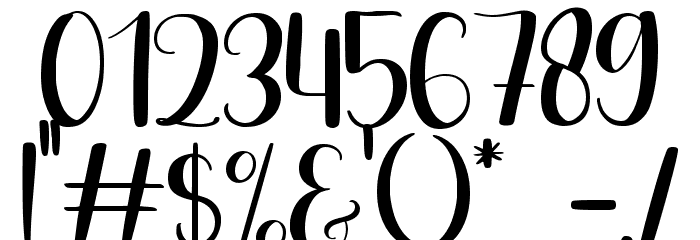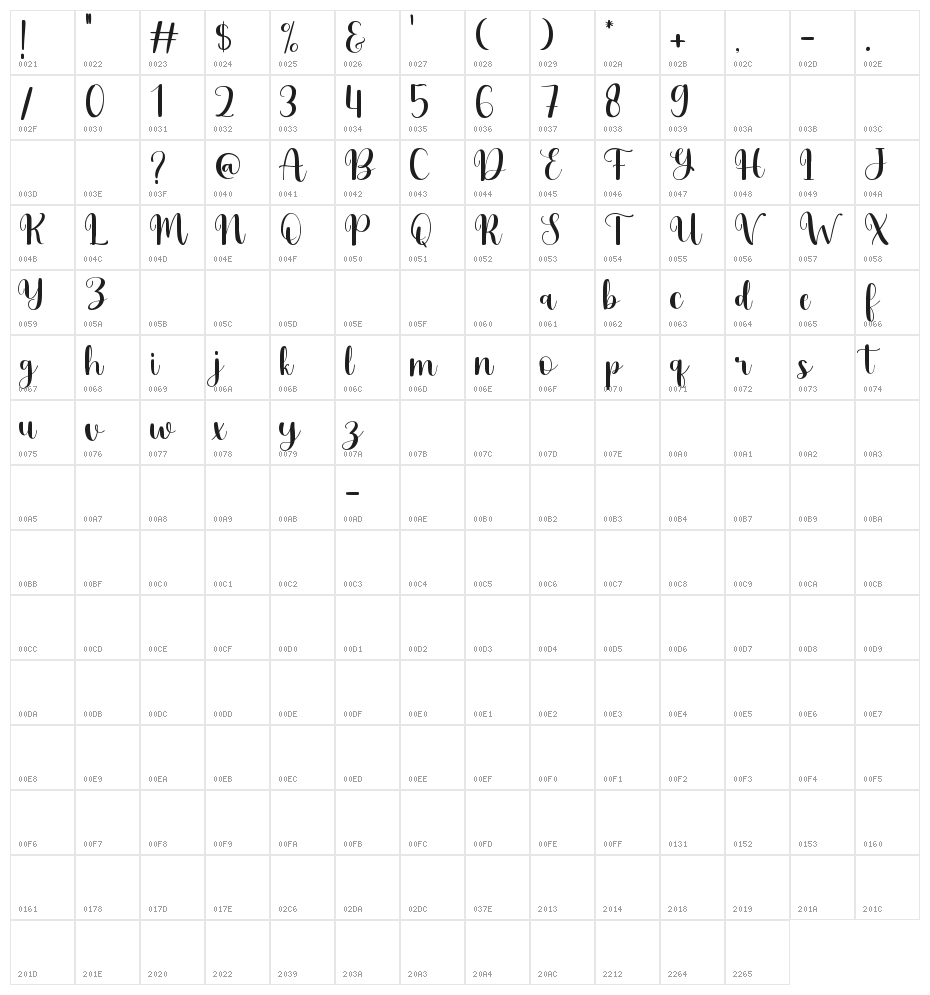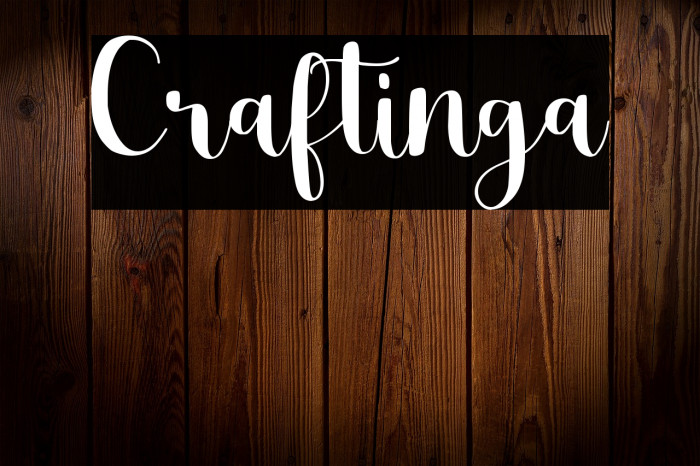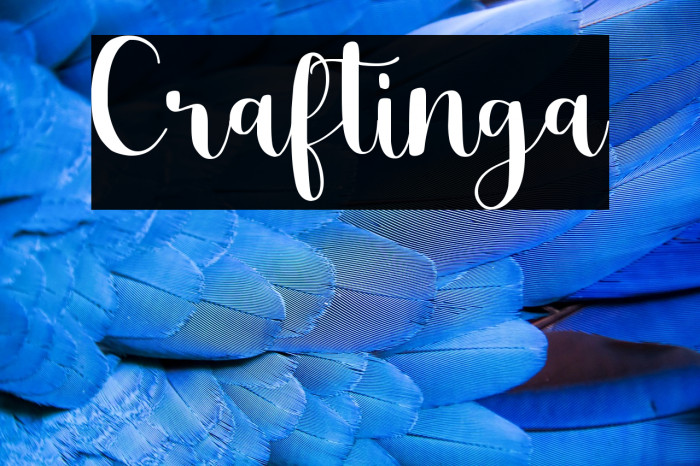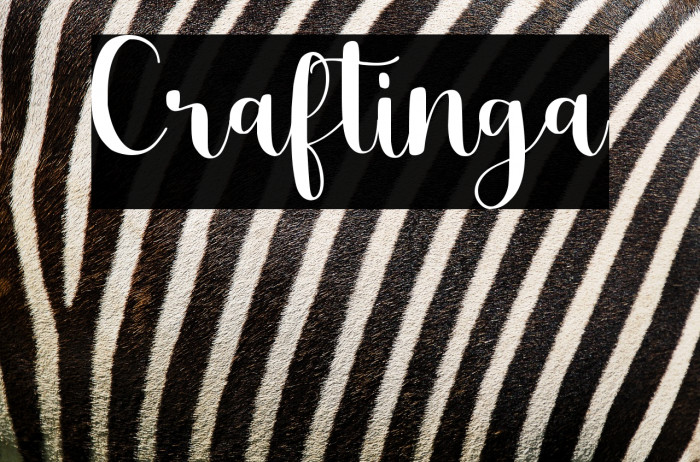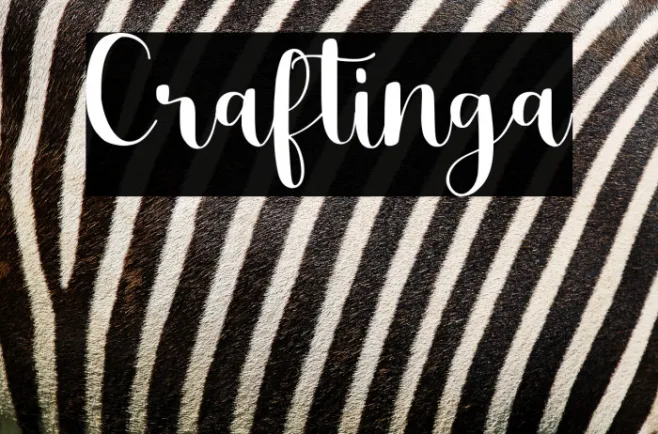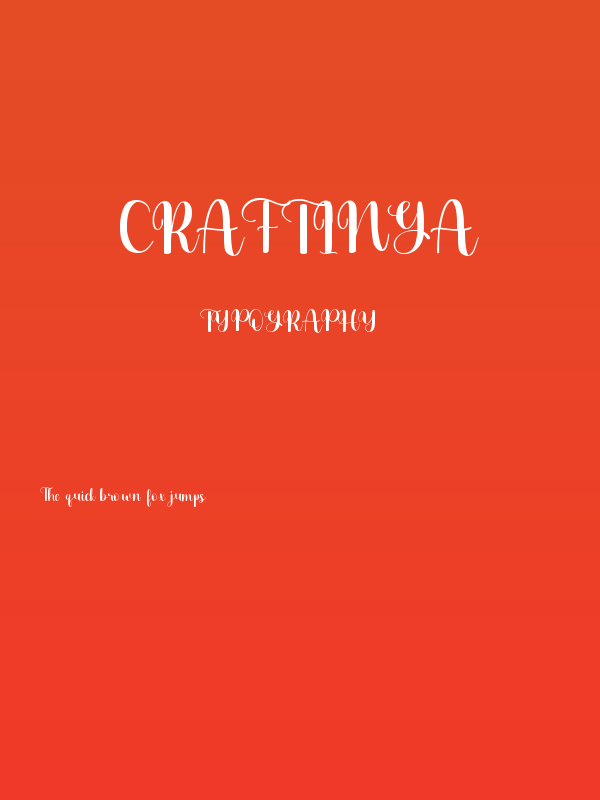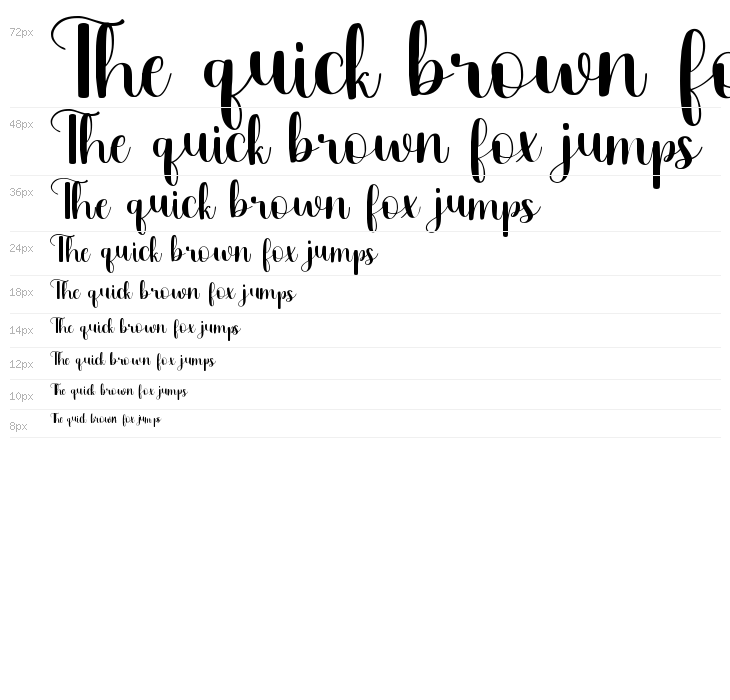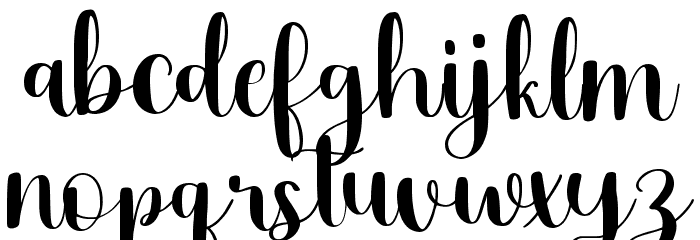
Craftinga Font
Craftinga Description
This font features a flowing, cursive style with elegant loops and swashes, giving it a handwritten appearance. The uppercase letters are bold and expressive, while the lowercase letters maintain a consistent flow with slightly exaggerated ascenders and descenders. The numbers are clear and legible, matching the overall style with a touch of flair. Special characters are creatively designed, adding to the font's decorative appeal. The font's overall look is both sophisticated and playful, making it suitable for a variety of creative applications.
| Use Case | Logos, Invitations, Decorative Text |